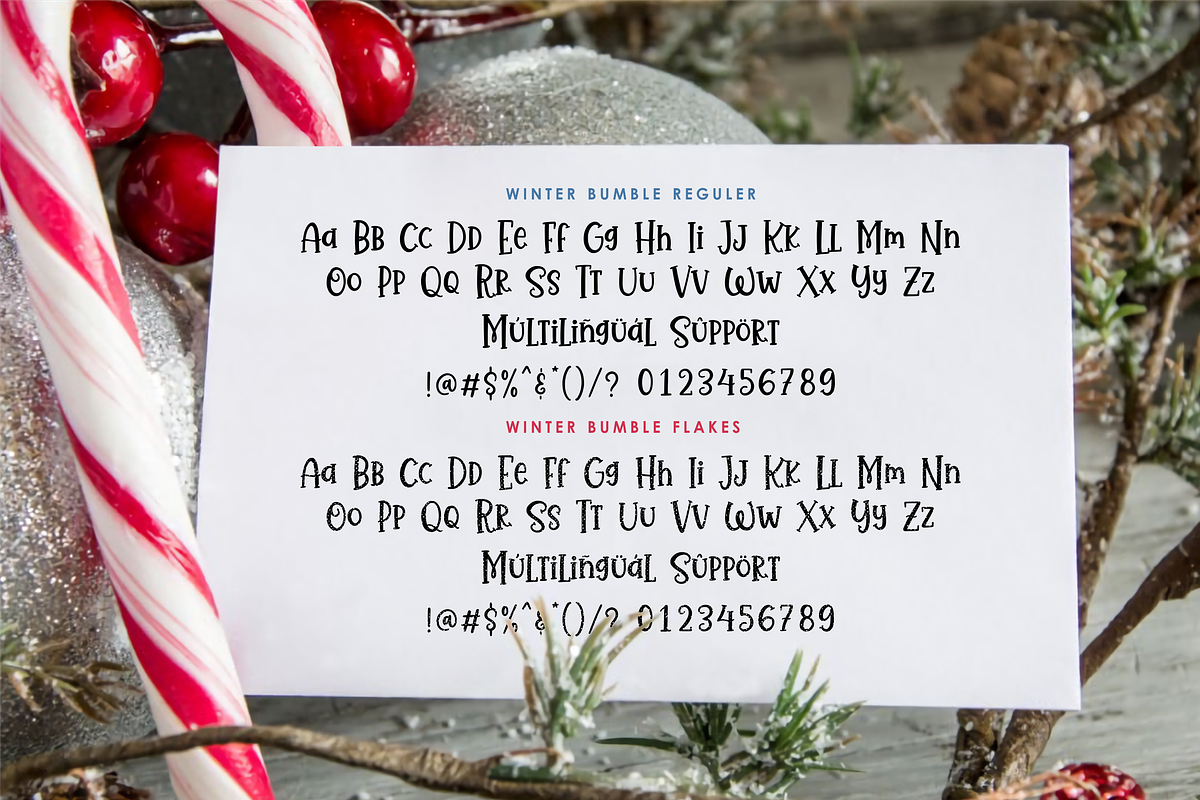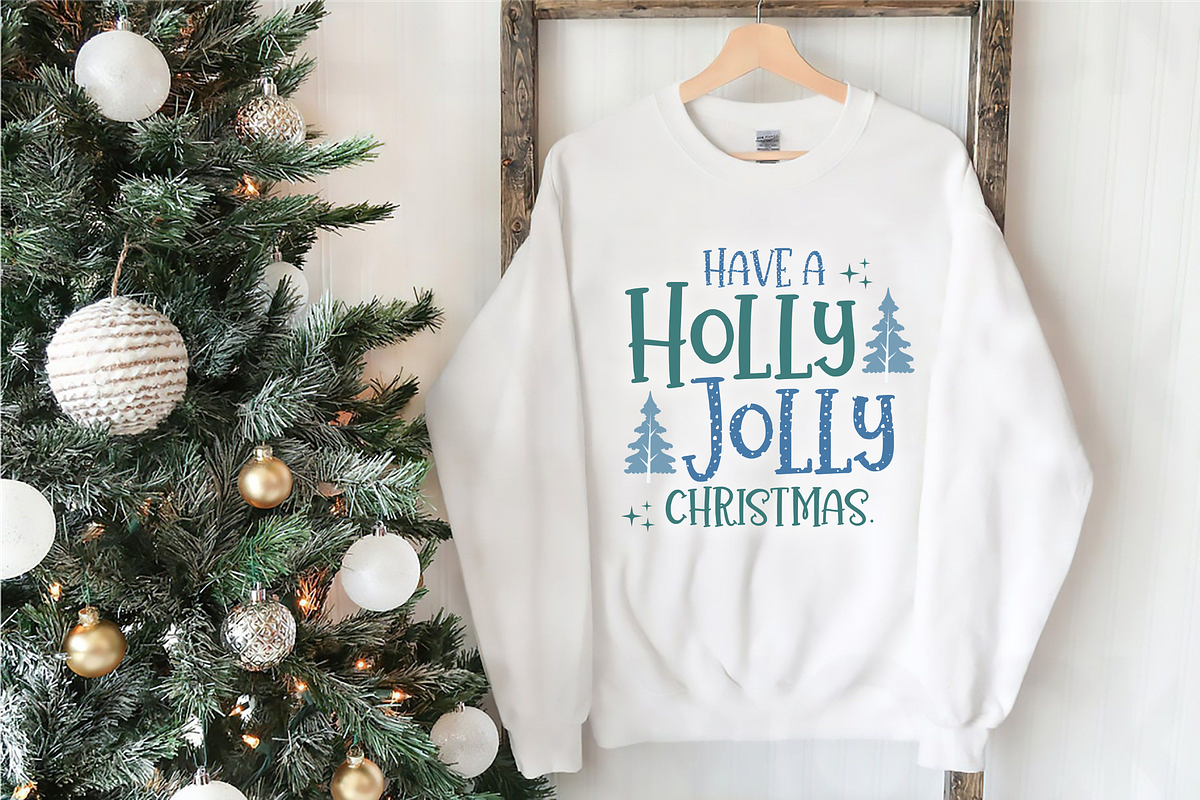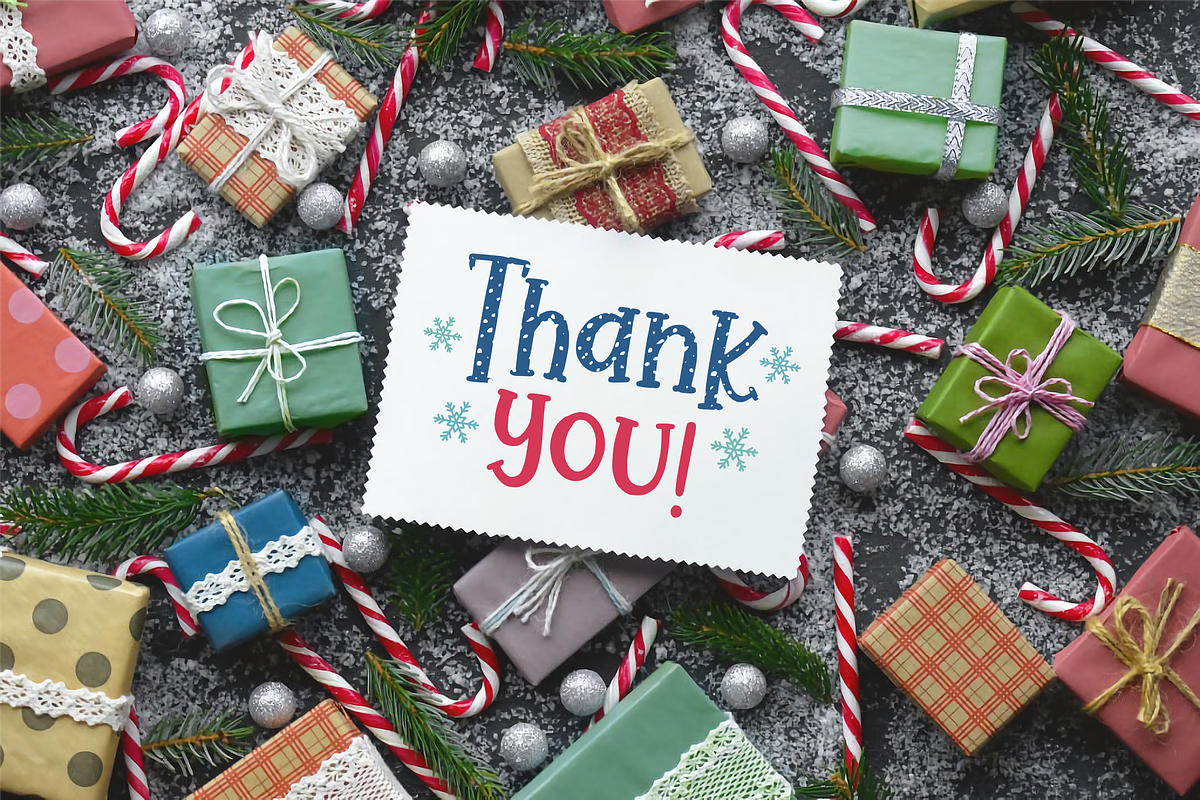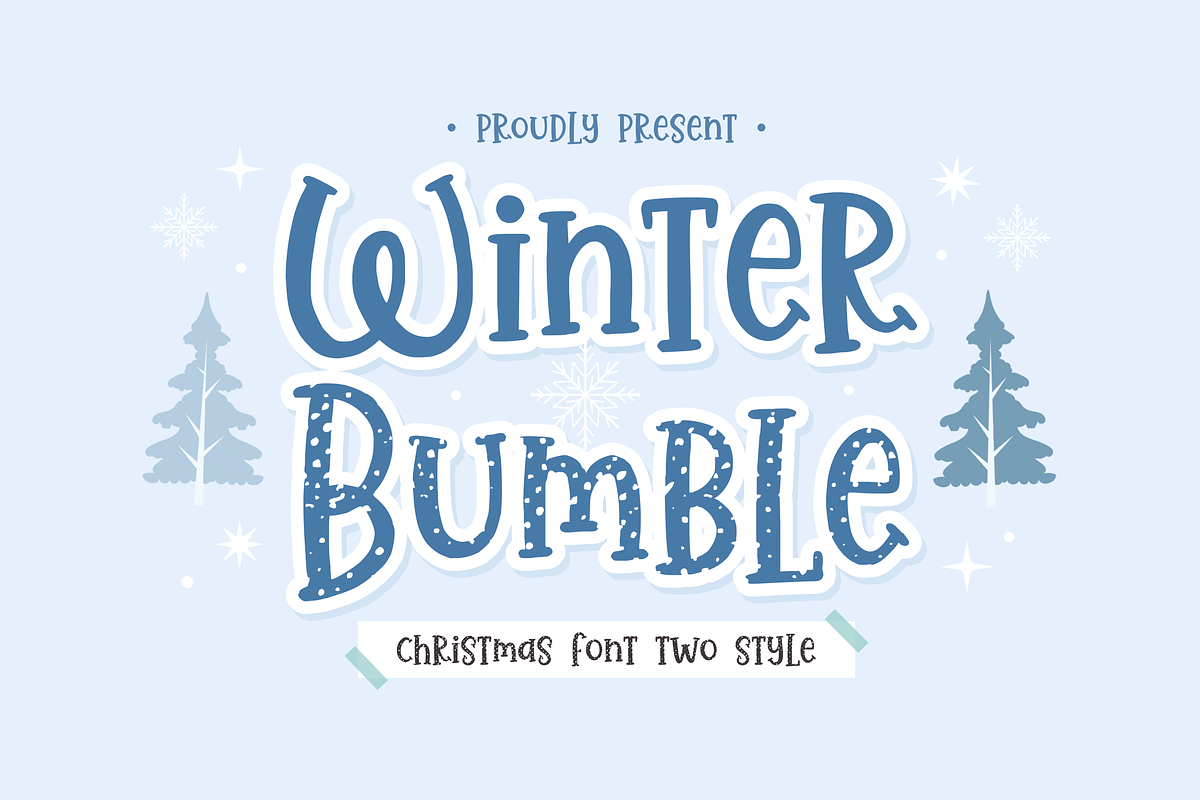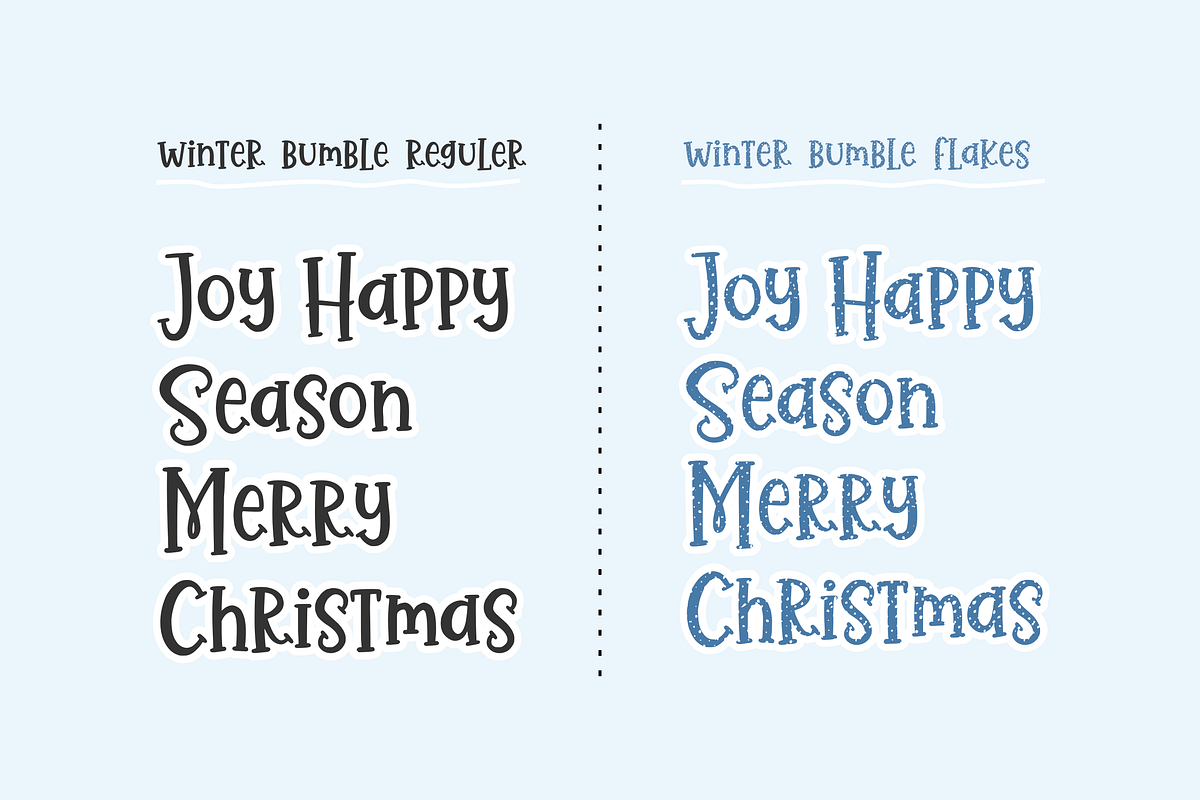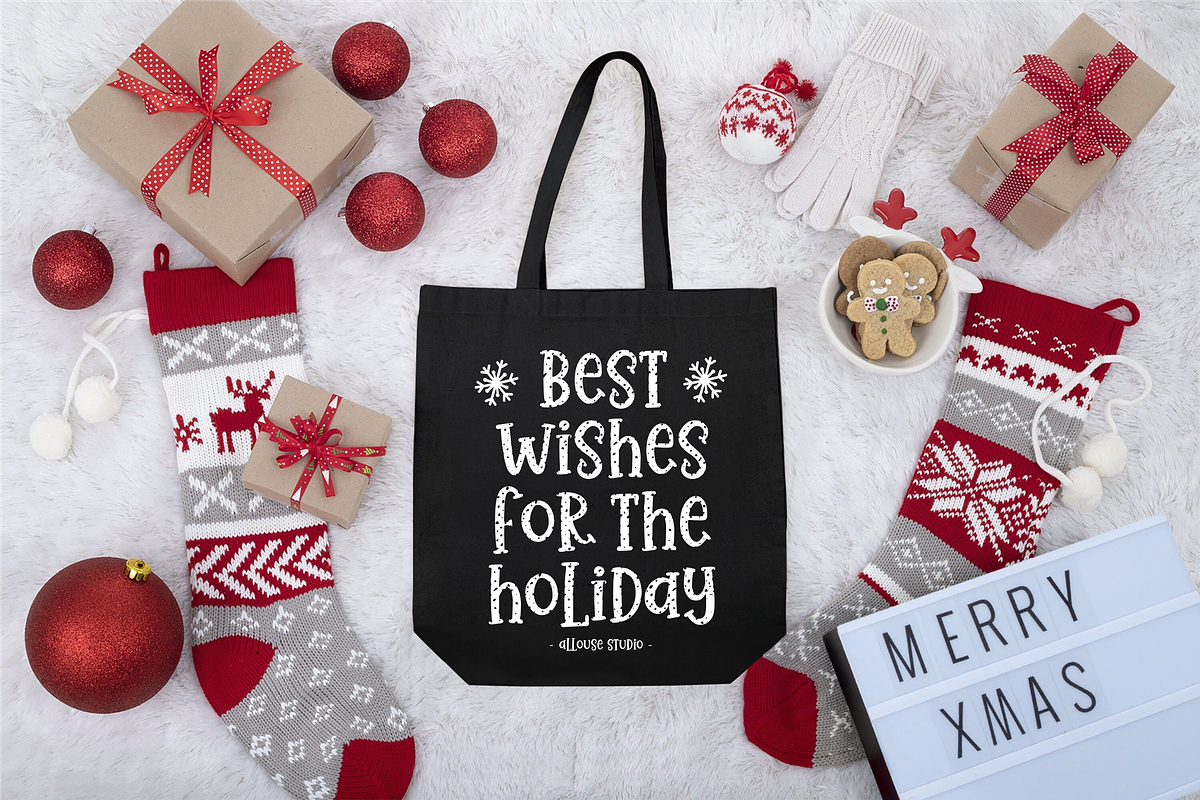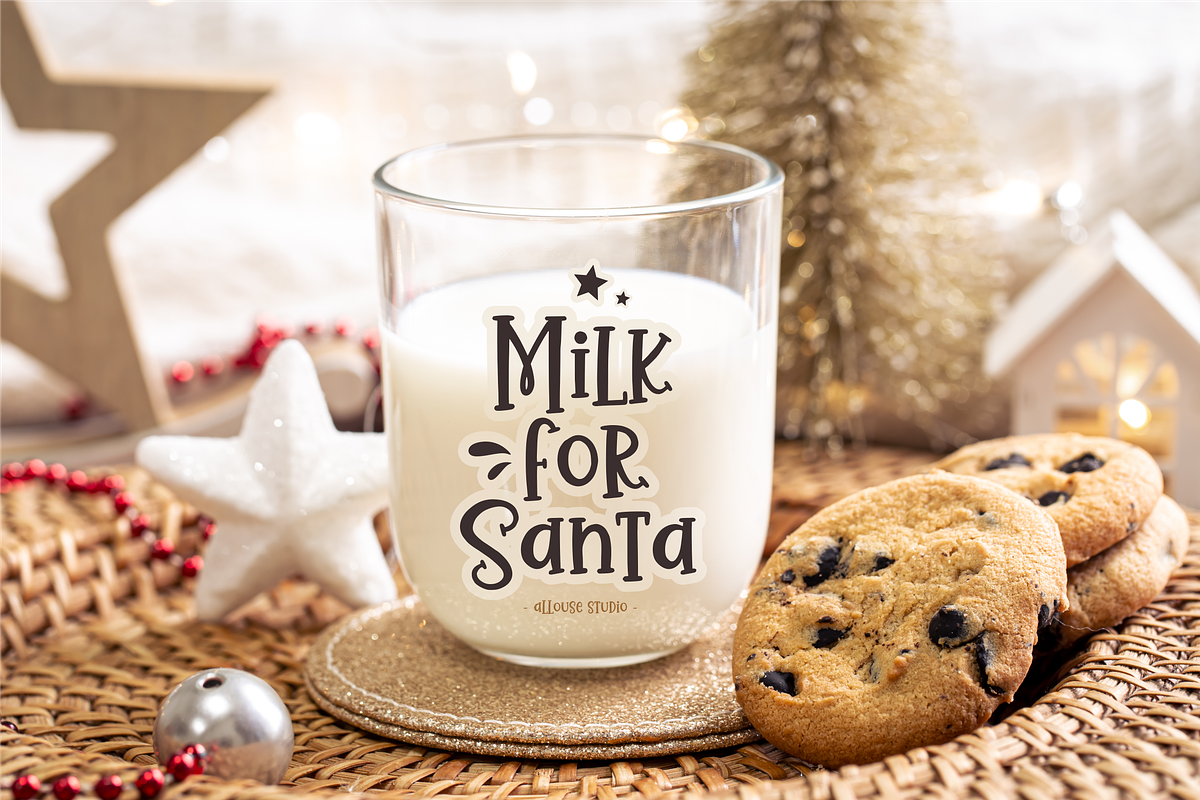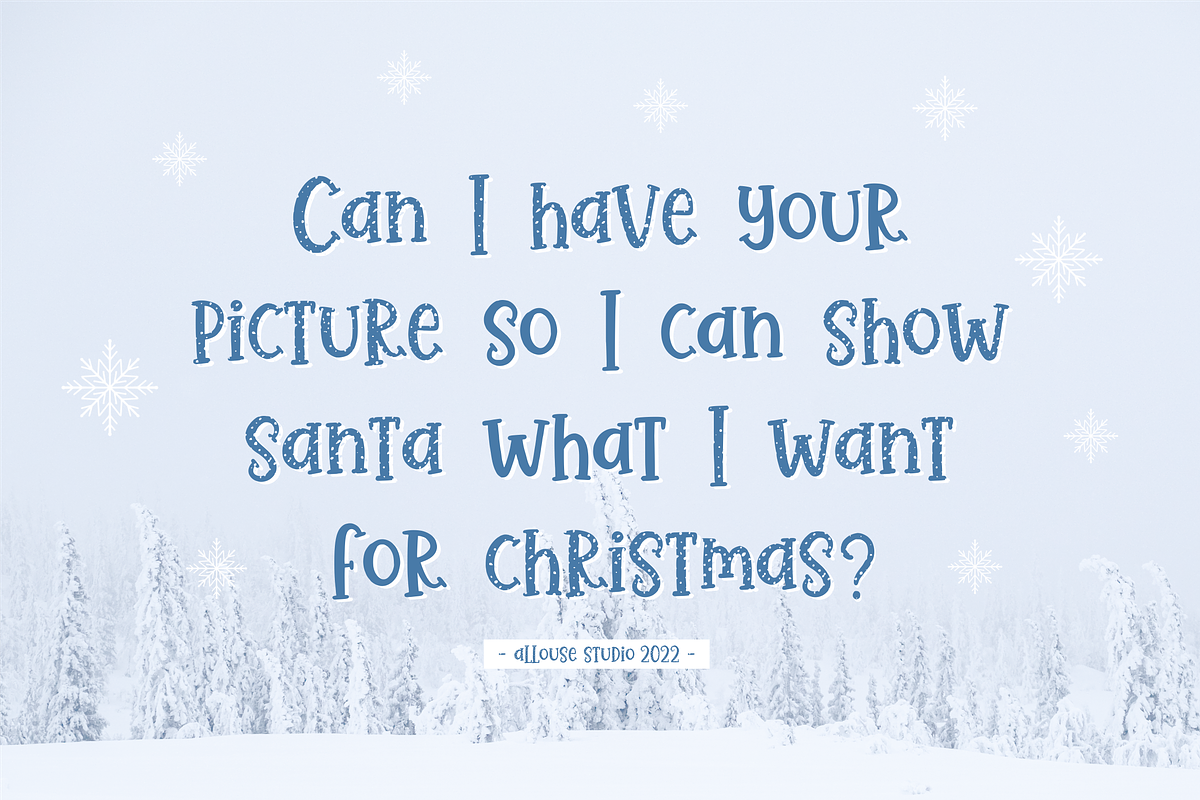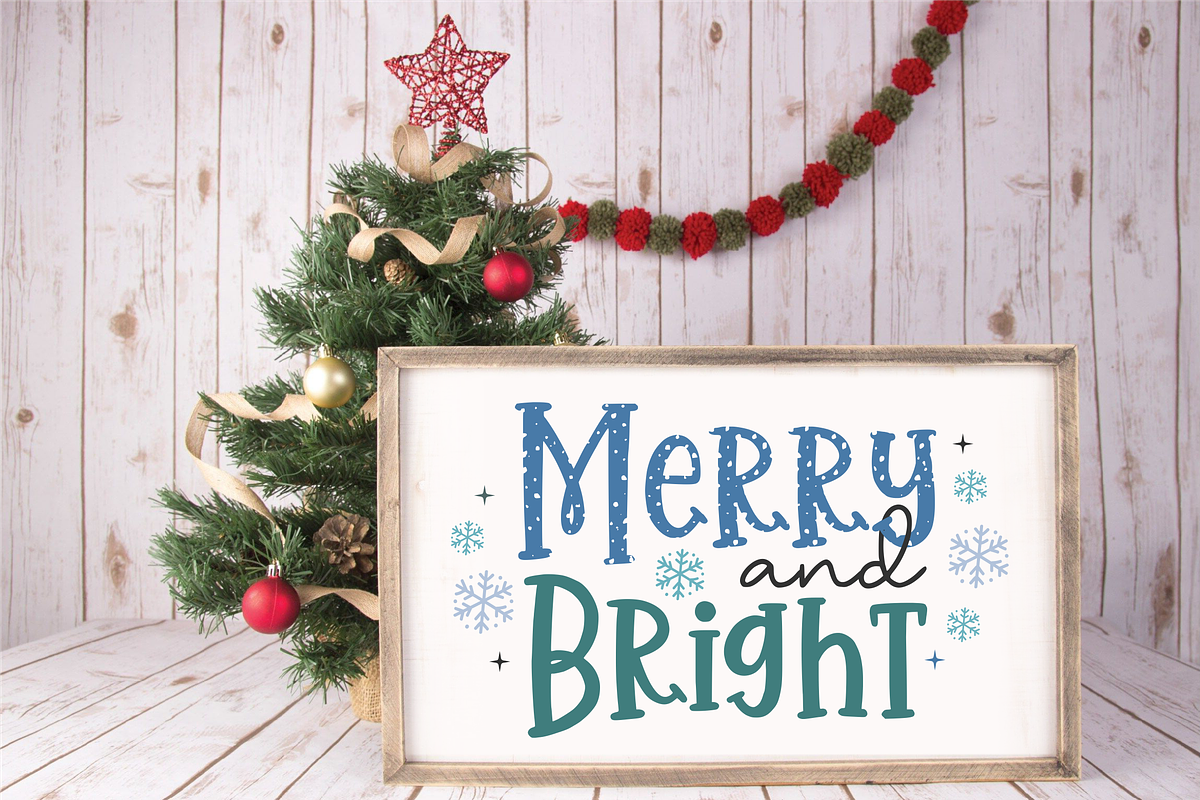
Winter Bumble A Christmas Font
Proudly Presenting, Winter Bumble A Christmas Font Two Style
Winter Bumble is perfect for any titles, logo, product packaging, branding project, megazine, social media, wedding, or just used to express words above the background.
Winter Bumble also come with Multi-Lingual Support.